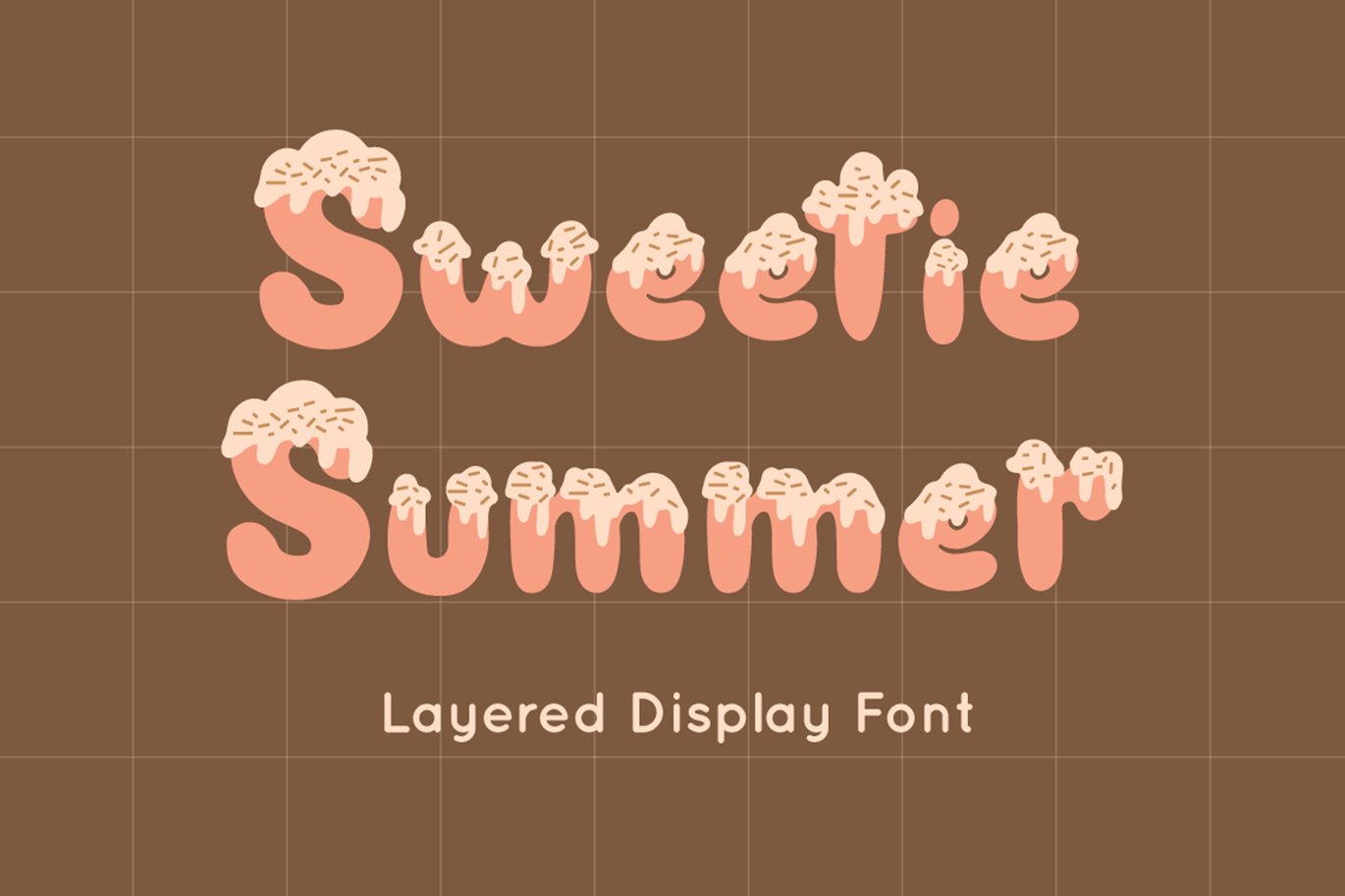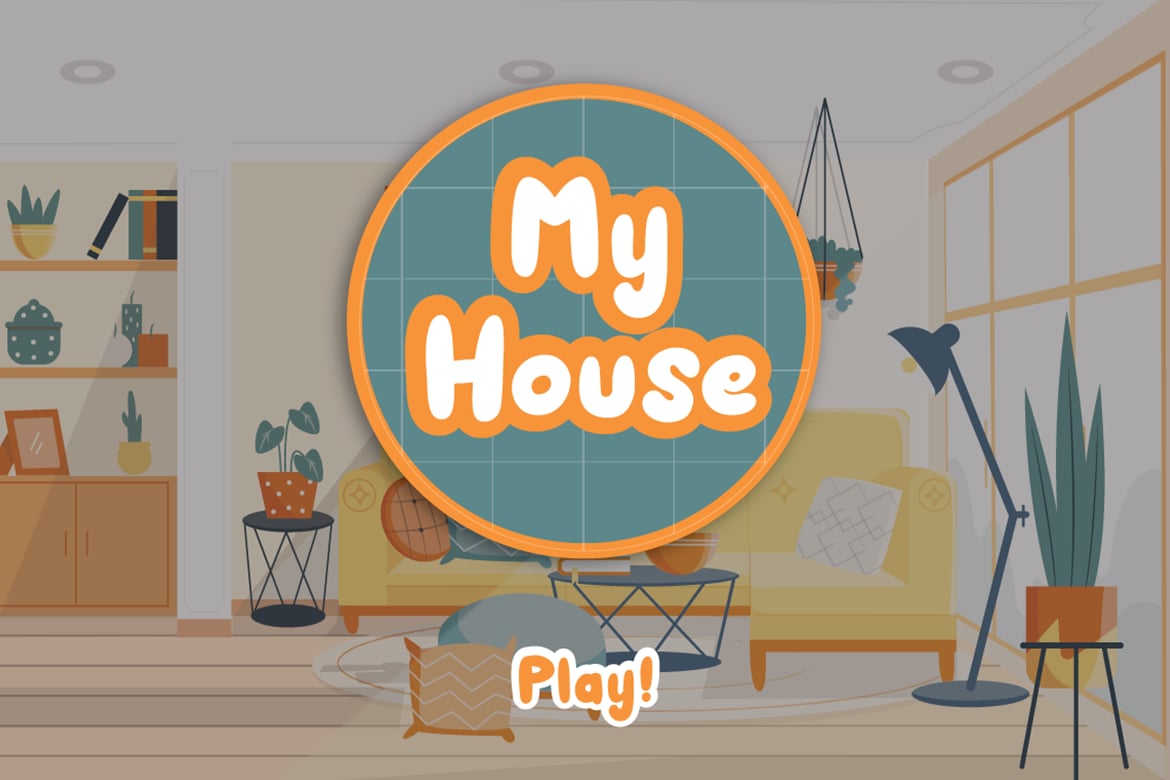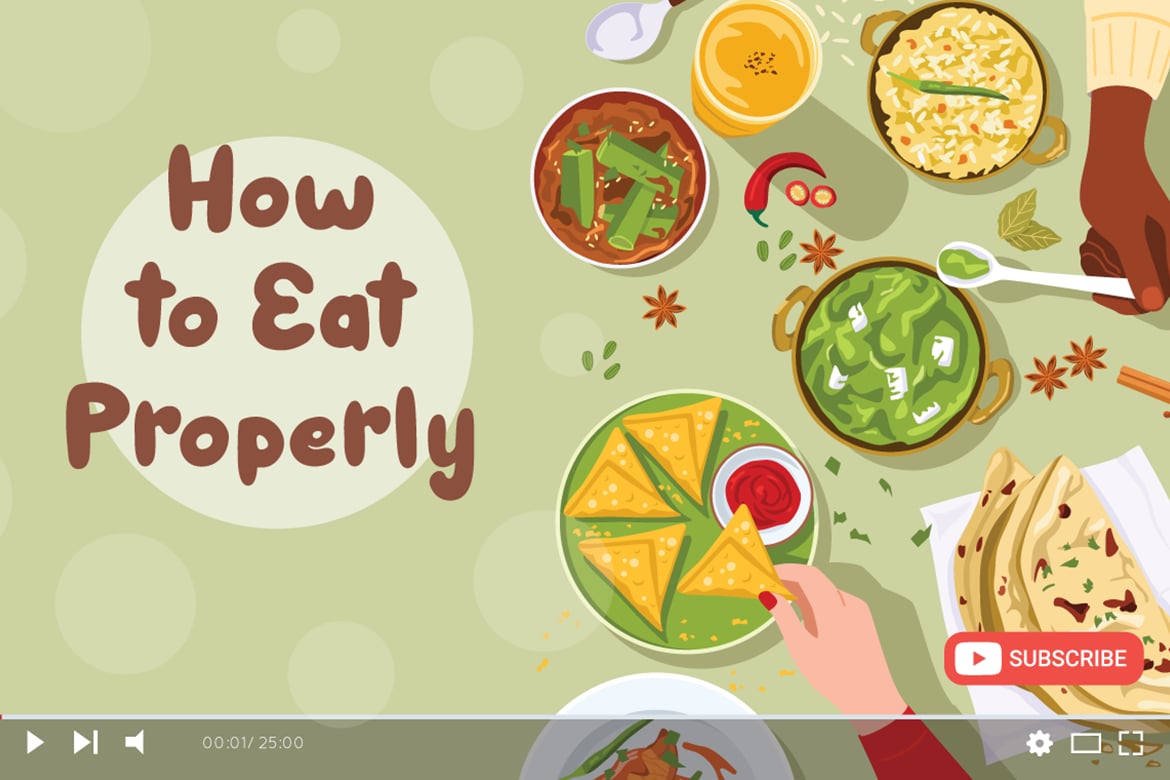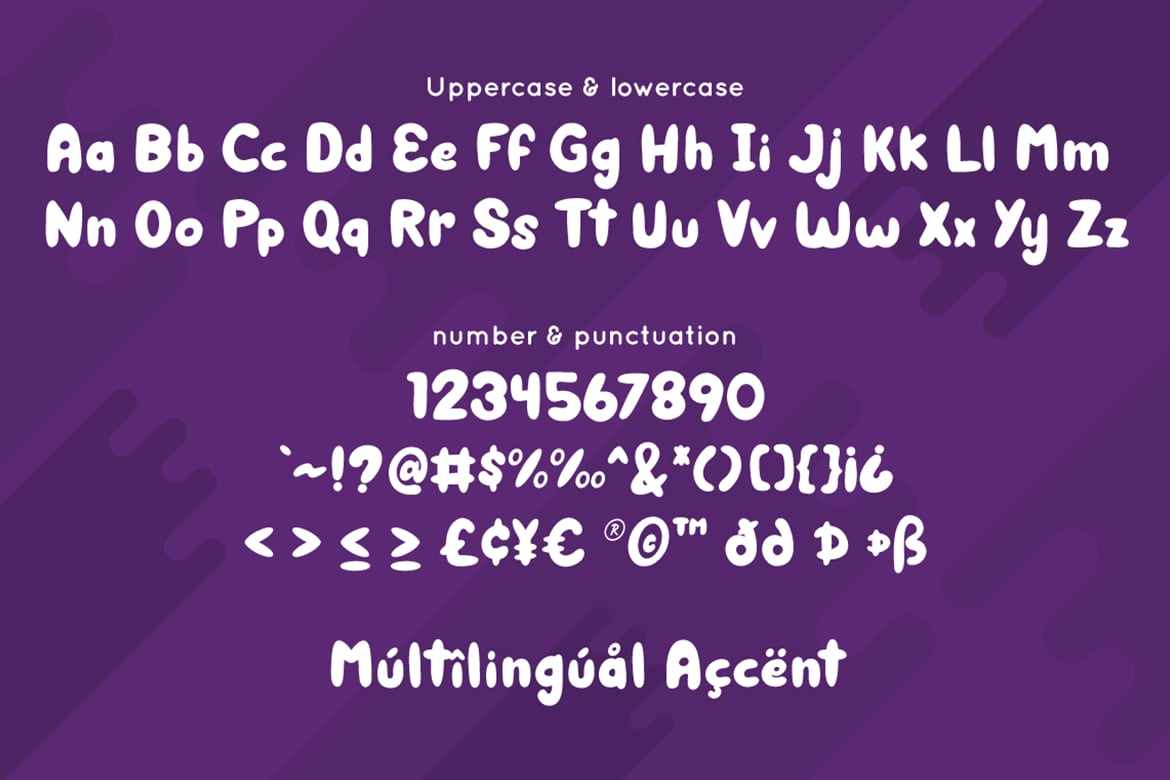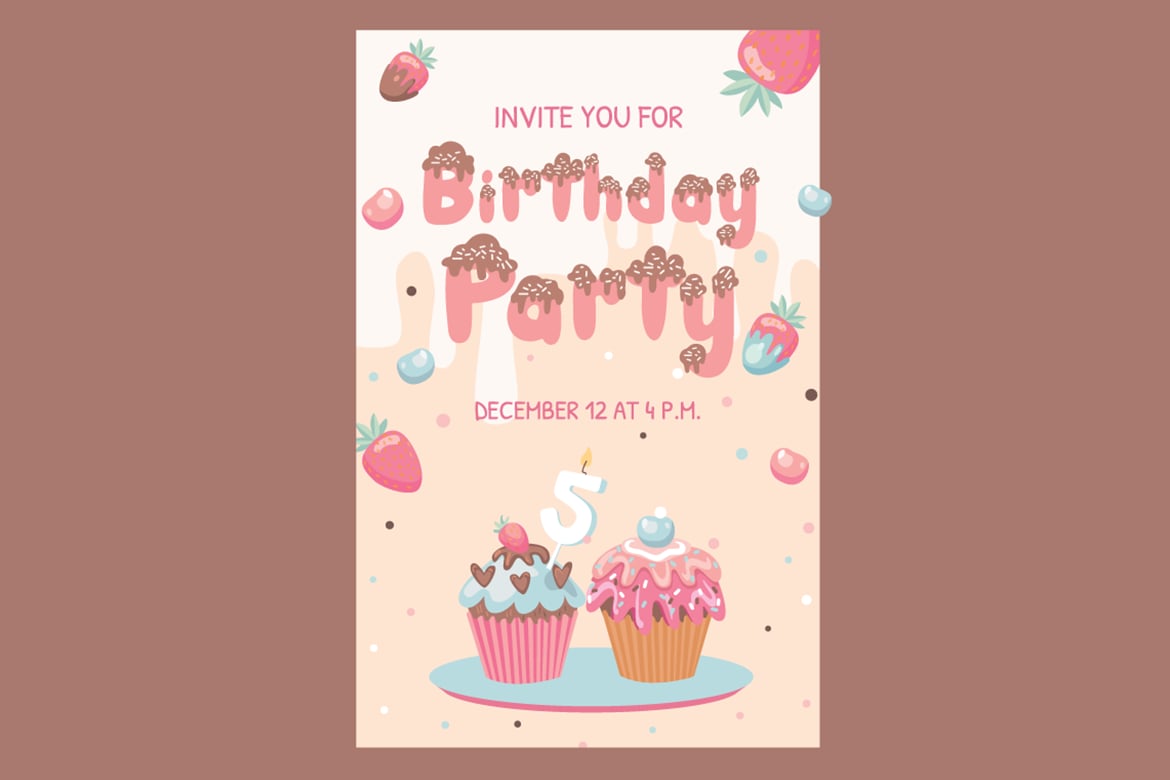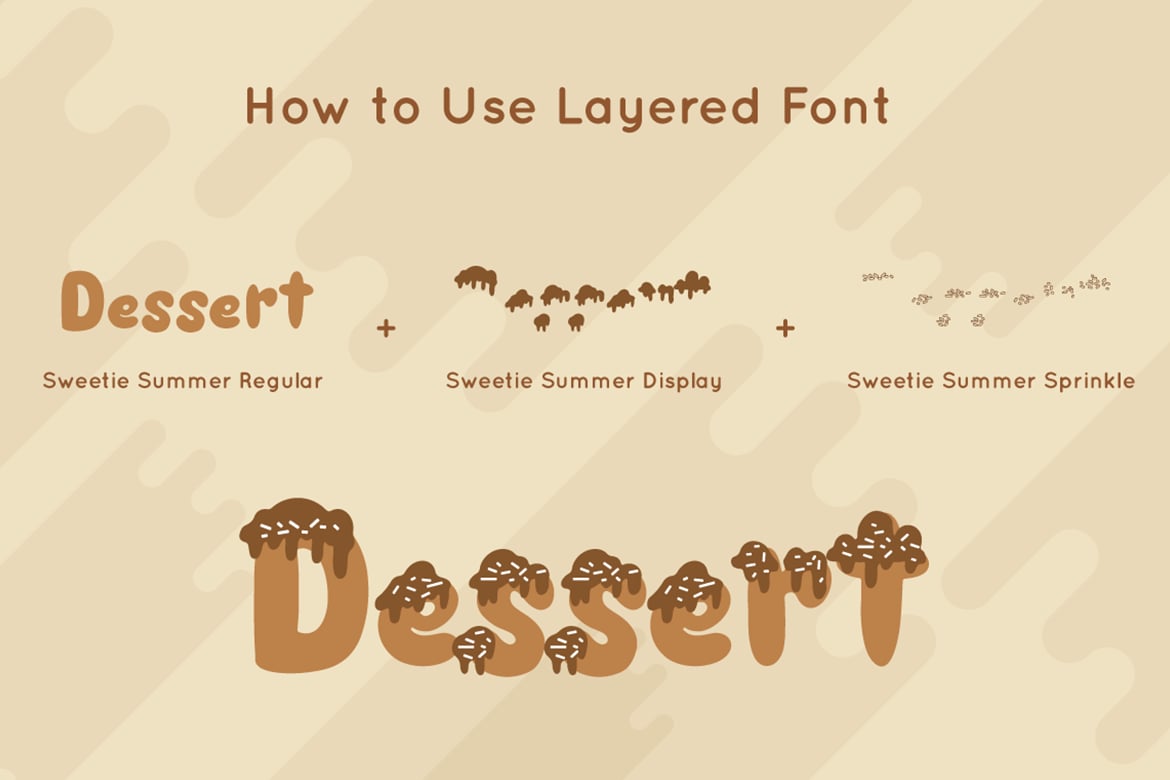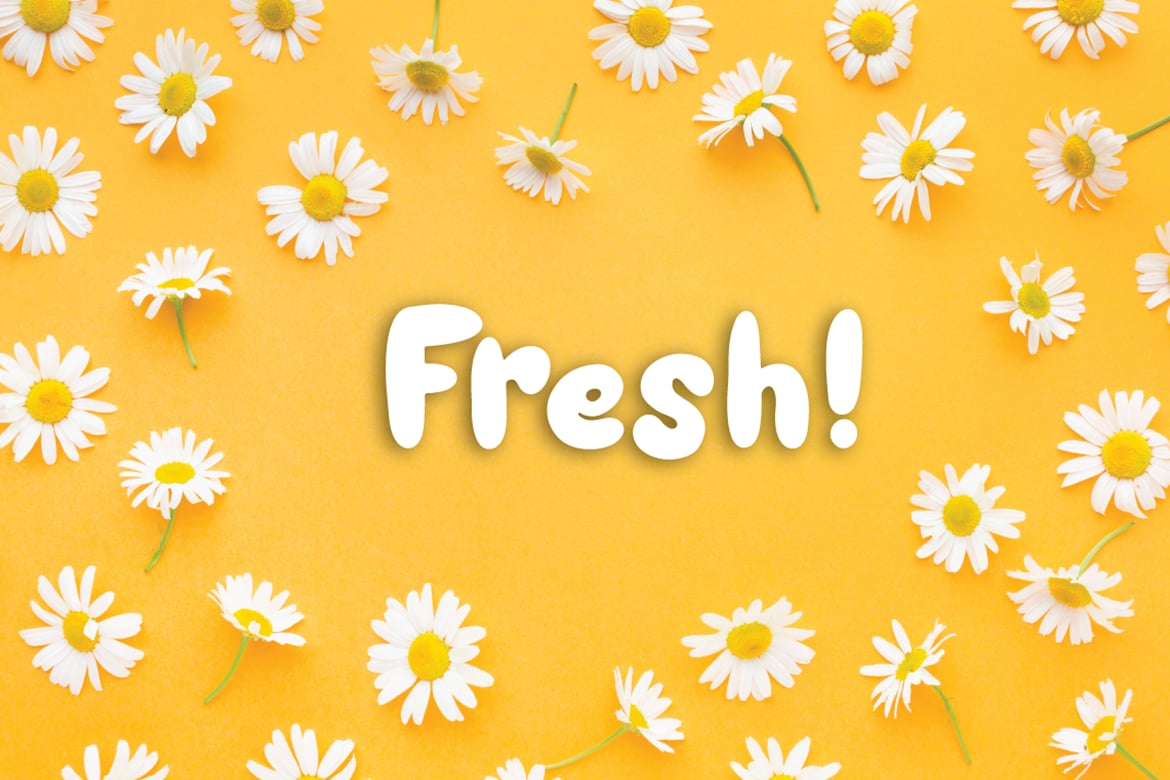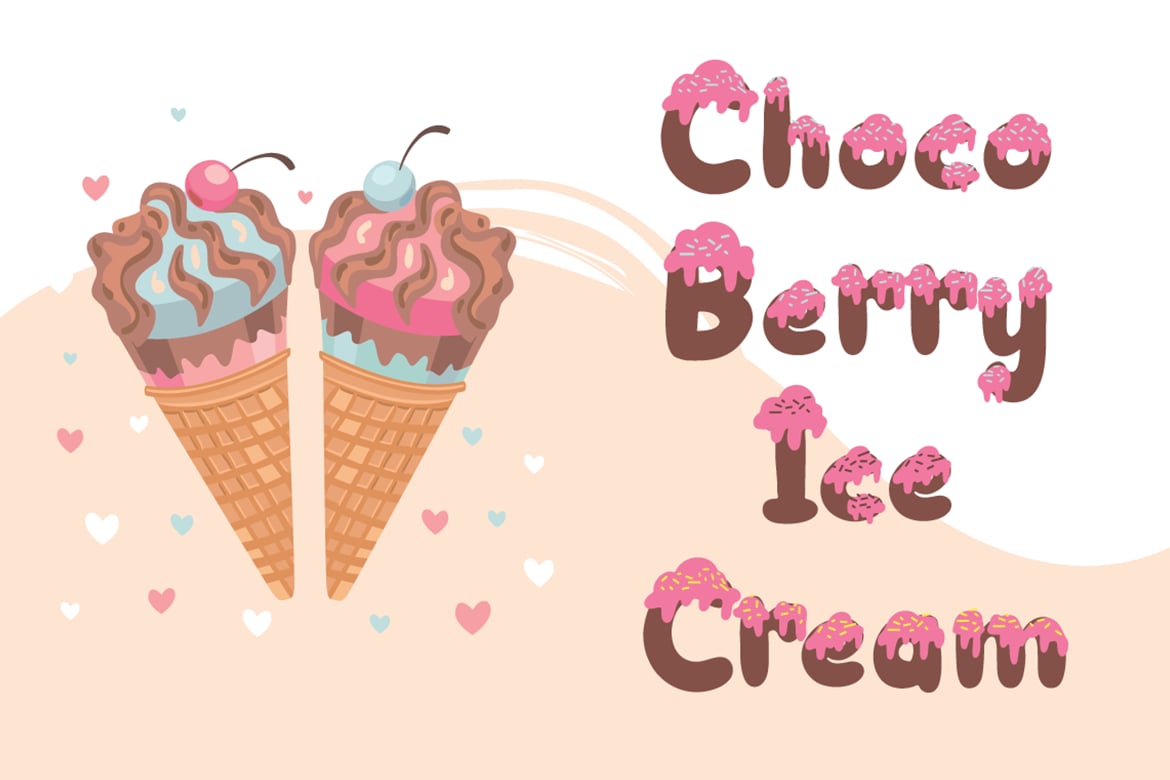
Sweetie Summer – Display Font
Sweetie Summer inspired by summer ice cream. perfect display font for summer business, summer flyer, summer sign & summer decor.
Comes with display font, this layered font make a shiny effect for typography that you creates.
Sweetie Summer is perfect for branding, logo, invitation, stationery, social media post, product packaging, merchandise, blog design, game titles, cute style design, Book/Cover Title and more.